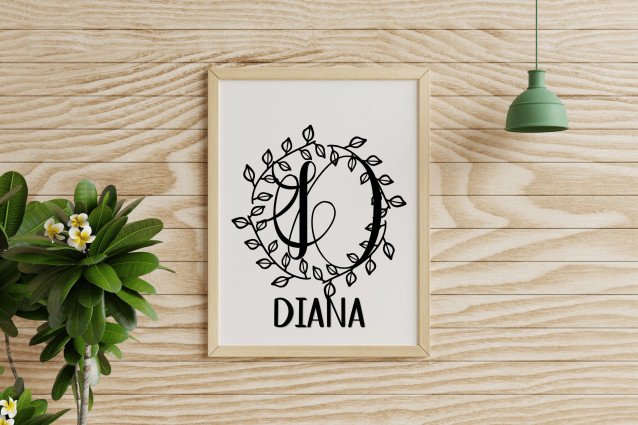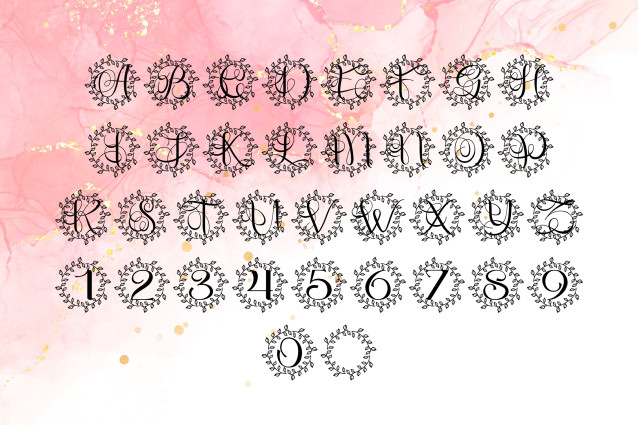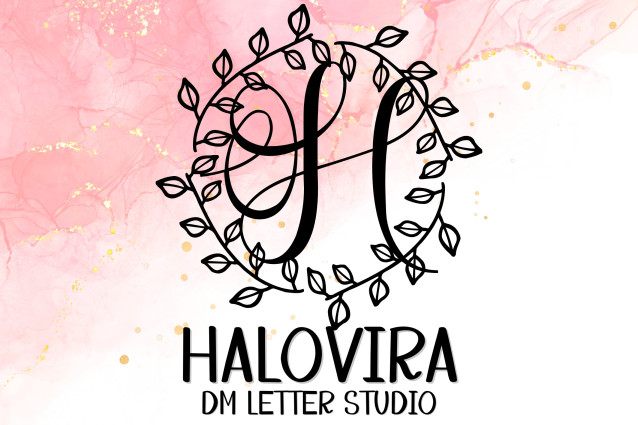
Halovira Font
Halovira Monogram is a graceful serif monogram font infused with whimsical botanical elements. Each letter is carefully crafted with refined lines and charming floral flourishes, perfect for those looking to add elegance and natural beauty to their personalized projects. Ideal for wedding materials, branding, or thoughtful gifts, this font brings sophistication to every letter.